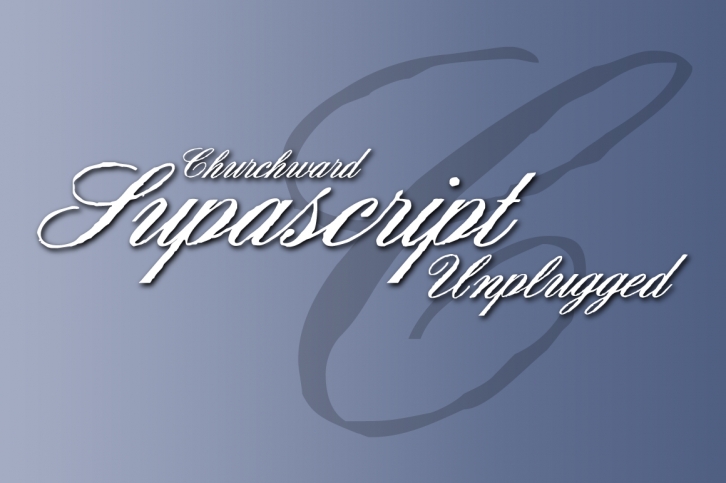
Churchward Supascript is a delicate, cursive and elegant script font. It is defined by smooth curves and is perfect for fashion branding or editorial designs. Add it confidently to your projects, and you will love the results.Â